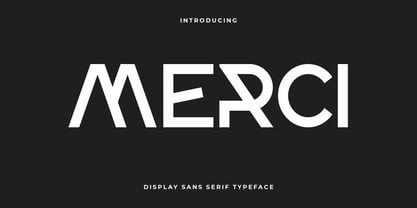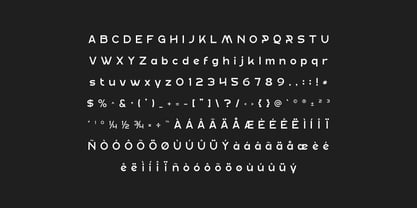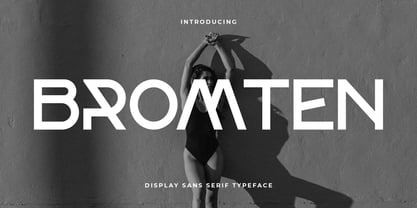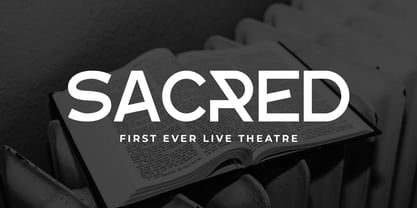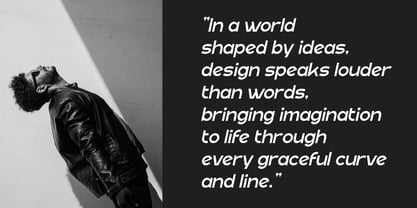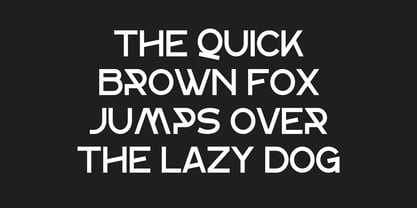
Bromten
by Artiveko
The Bromten Font Family was designed by Iwan Alwan and published by Artiveko. Bromten contains 2 styles and family package options.
Bromten is a geometric modern sans serif font designed for precision, balance, and forward-thinking aesthetics. Inspired by clean architectural lines and minimal design principles, Bromten combines circular shapes and sharp terminals to create a font that feels both engineered and approachable. Its crisp, modern appearance makes it ideal for branding, tech interfaces, editorial design, product packaging, and digital media that requires a sleek, contemporary voice.
Bromten includes a full set of uppercase and lowercase letters, multilingual support, and refined ligatures and alternates that add versatility without clutter. Every character is shaped with careful geometry to ensure harmony across text blocks while maintaining personality in display use. Whether you're designing for a startup, a minimalist portfolio, or a futuristic app, Bromten offers clarity, confidence, and creative control. Let your message be sharp, smart, and striking — with Bromten.